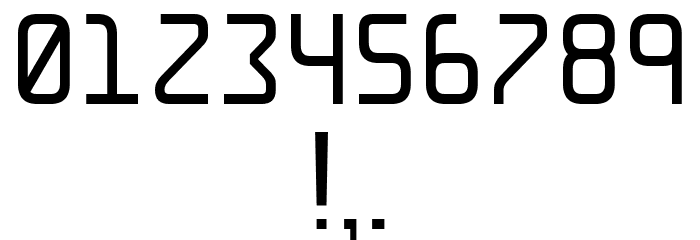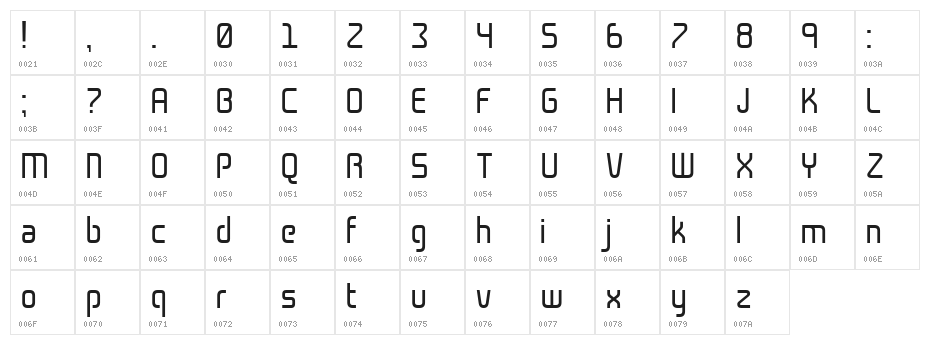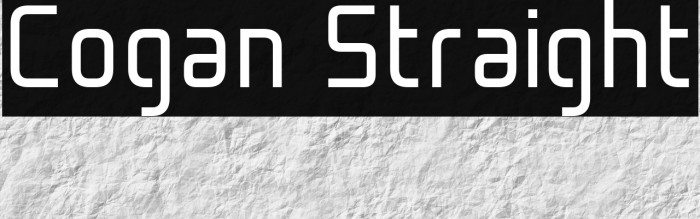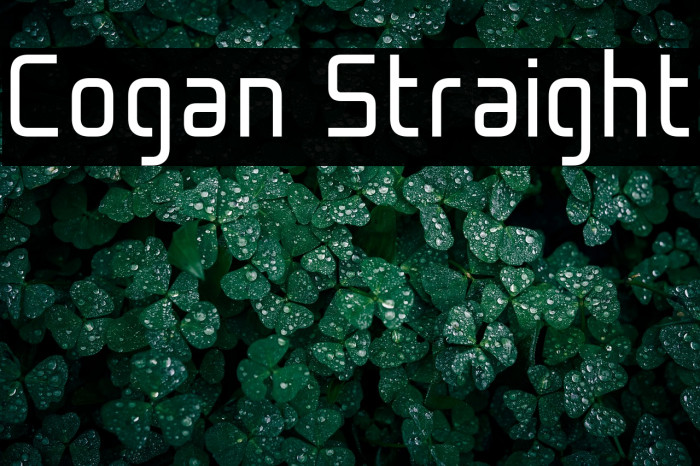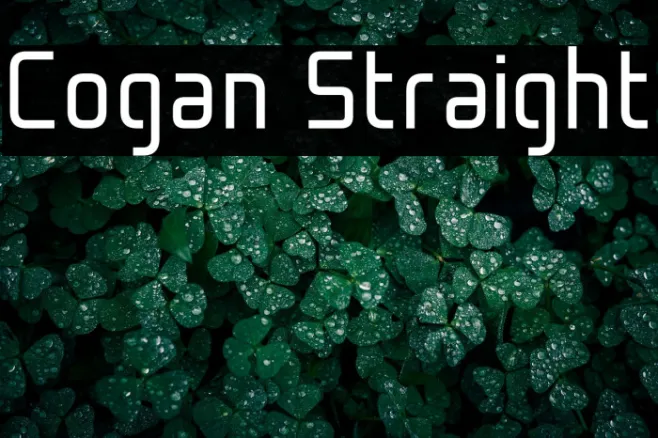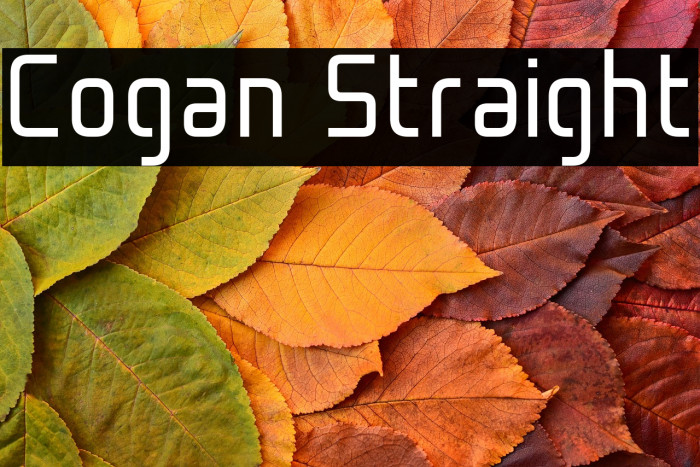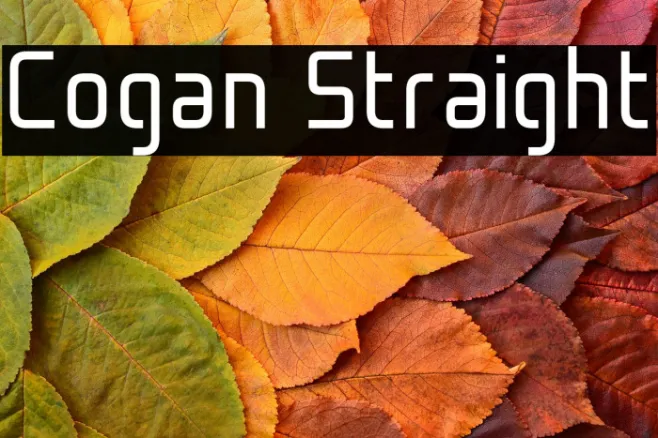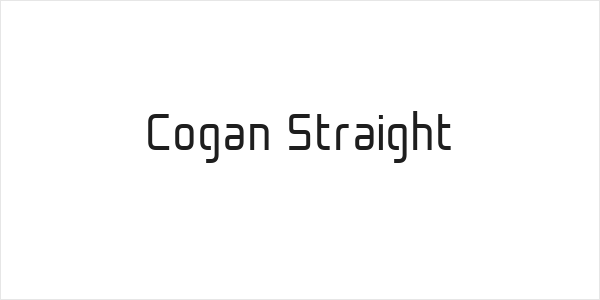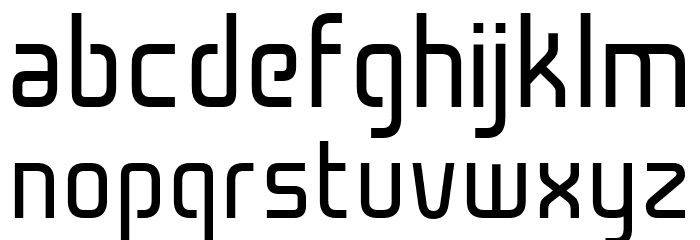
Cogan Straight Font
Cogan Straight Description
This font exhibits a modern and sleek design with a geometric structure. The characters are uniform and consistent, featuring rounded edges that soften the overall appearance. The uppercase and lowercase letters maintain a balanced proportion, contributing to its readability. Numbers are clear and distinct, making them suitable for various applications. The special characters are well-integrated, maintaining the font's cohesive style. Its clean lines and contemporary feel make it versatile for both digital and print media.